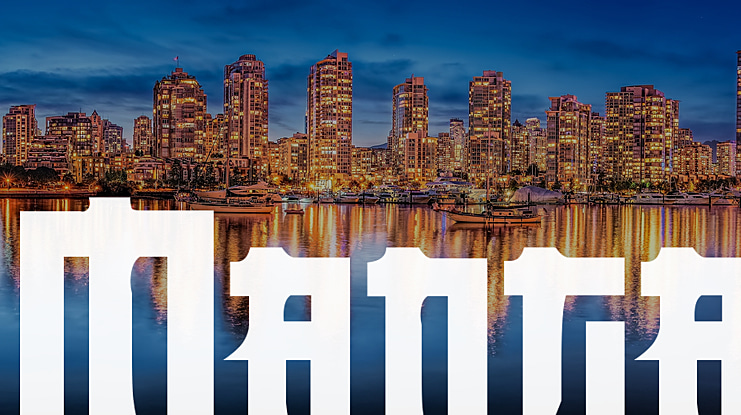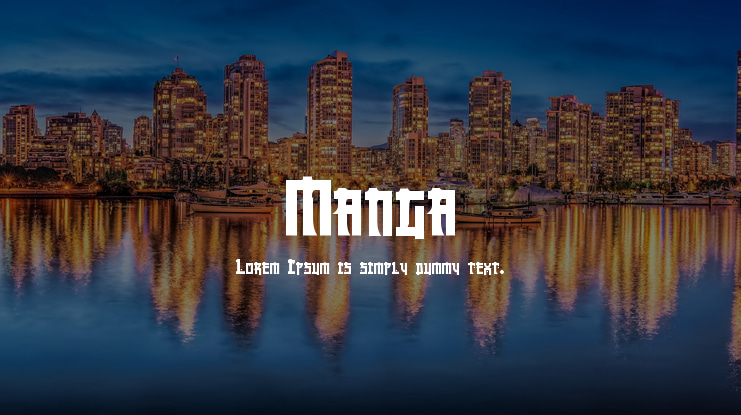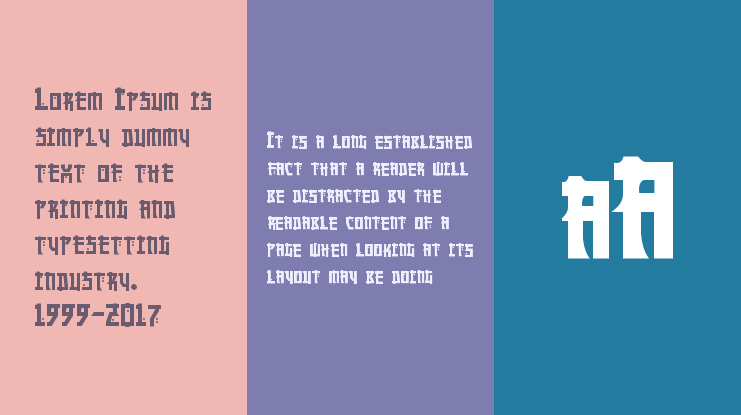
Manga Font Family
This faux-Asian typeface is heavily based on some logos of 1990s-era manga imports. Includes extended character set, symbols, and Euro. Includes hollow and italic version.